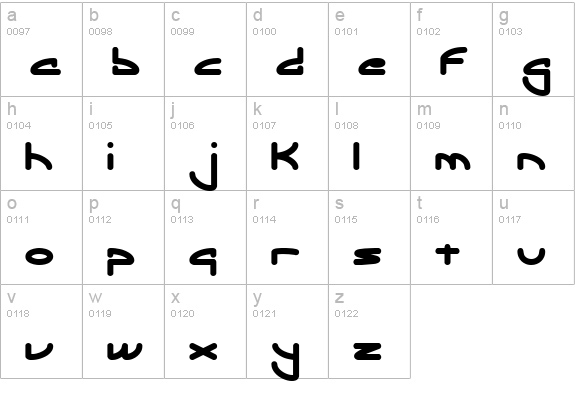
Ecliptic BRK Font Details
Ecliptic BRK is a stunning font that brings a touch of elegance and sophistication to any design project. Its sleek lines and modern style make it perfect for anything from branding materials to website headers. The unique geometric shapes and clean letterforms give Ecliptic BRK a contemporary feel that is both eye-catching and versatile. But what truly sets Ecliptic BRK apart is that it is not only visually stunning, but it is also free. That's right, this incredible font is freely available to download at FontsMarket.com. Whether you're a professional designer or just someone looking to add a little flair to your personal projects, Ecliptic BRK is the perfect choice. With Ecliptic BRK, you can create stunning logos, eye-catching headlines, beautiful invitations, and so much more. Its versatility makes it a go-to font for any occasion. Whether you're designing for print or digital, Ecliptic BRK will make your work shine. So why wait? Download Ecliptic BRK today and let your creativity soar. With its sleek design and the fact that it's free, it's a font that you simply can't pass up. Head over to FontsMarket.com and get your hands on Ecliptic BRK now. Your designs will thank you.